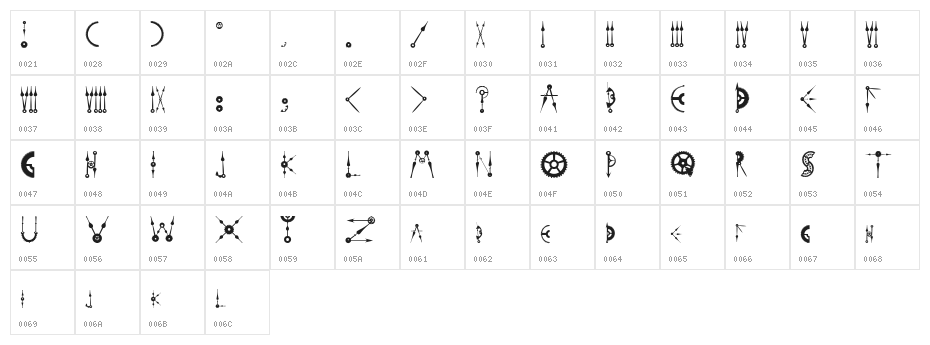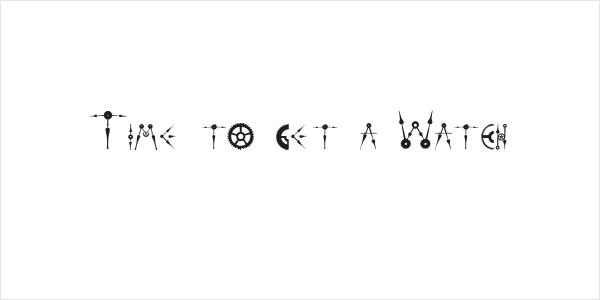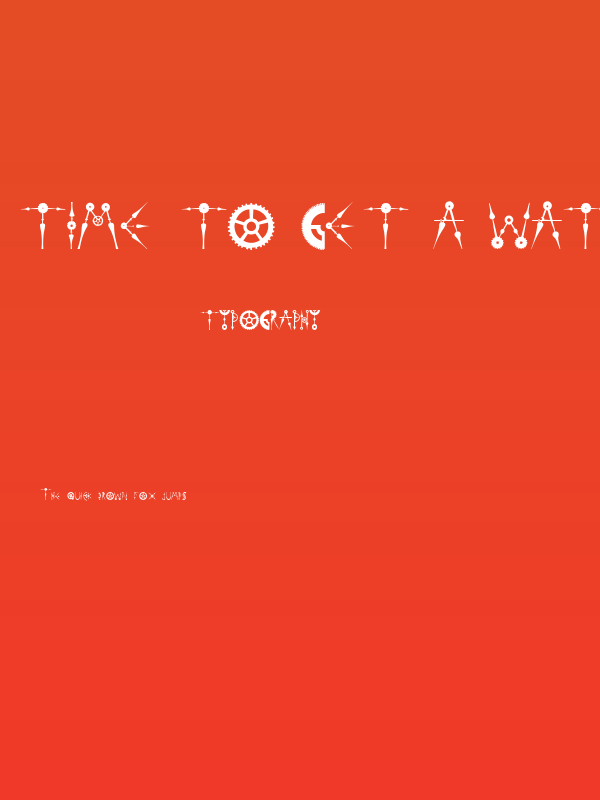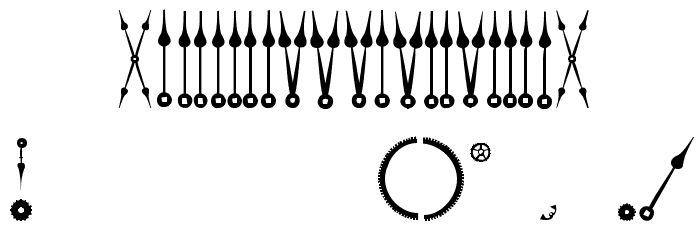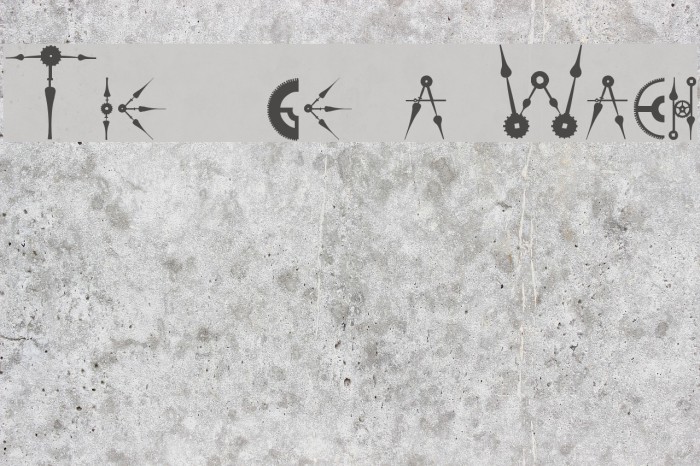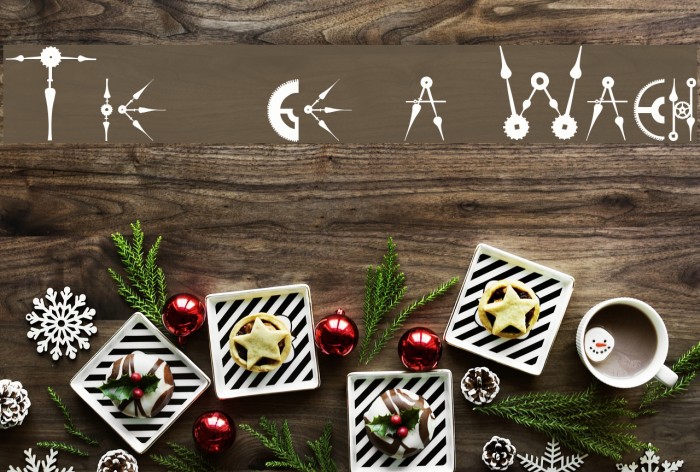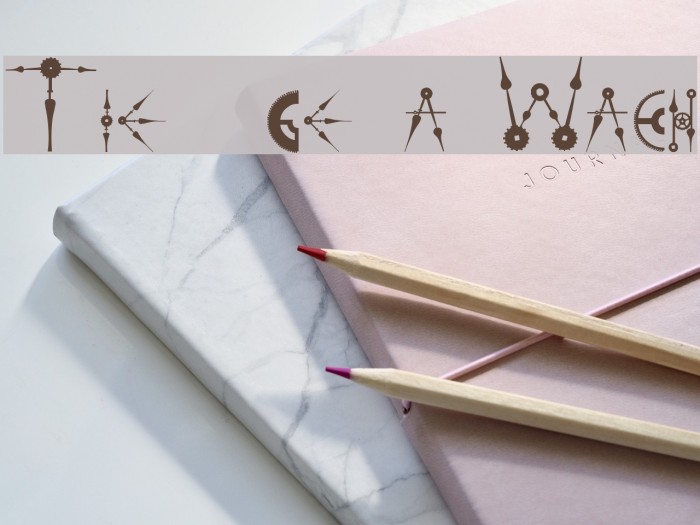
Time to get a Watch Font
Time to get a Watch Description
This font is a unique and creative design that incorporates elements of clockwork and mechanical gears into each character. The letters are composed of intricate details resembling clock hands, gears, and other mechanical parts, giving it a steampunk aesthetic. The design is highly decorative, with each character featuring a distinct combination of elements that make it stand out. This font is not only visually striking but also evokes a sense of movement and complexity, reminiscent of the inner workings of a watch. The overall appearance is bold and artistic, making it suitable for projects that require a distinctive and thematic typeface.
| Use Case | Logos, Headlines, Posters |
| Proposed Projects | Ideal for steampunk-themed designs, posters, book covers, and creative branding projects. |